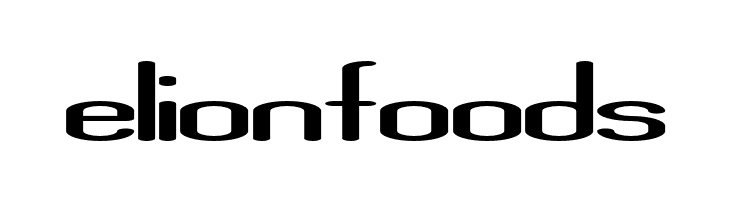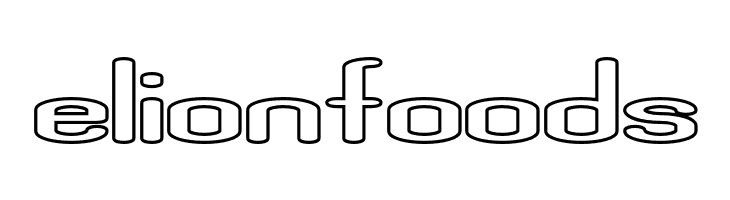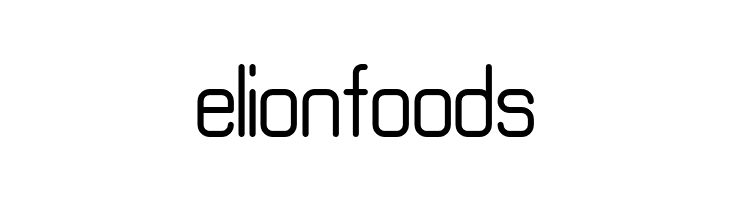
A modern, sleek font with elongated, rounded characters and a futuristic aesthetic.
A modern, outline-style font with a geometric and futuristic design.
A modern, geometric font with rounded edges and a clean, minimalistic style.